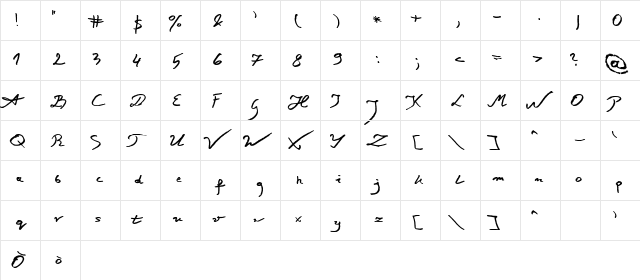
Complete Jacek Zieba-Jasinski Italic glyph index. Displaying only characters natively supported by Jacek Zieba-Jasinski Italic font.
Jacek Zieba-Jasinski is a composed and adaptable typeface that performs quietly and consistently across a wide range of design contexts. The slanted form adds forward momentum and visual energy.